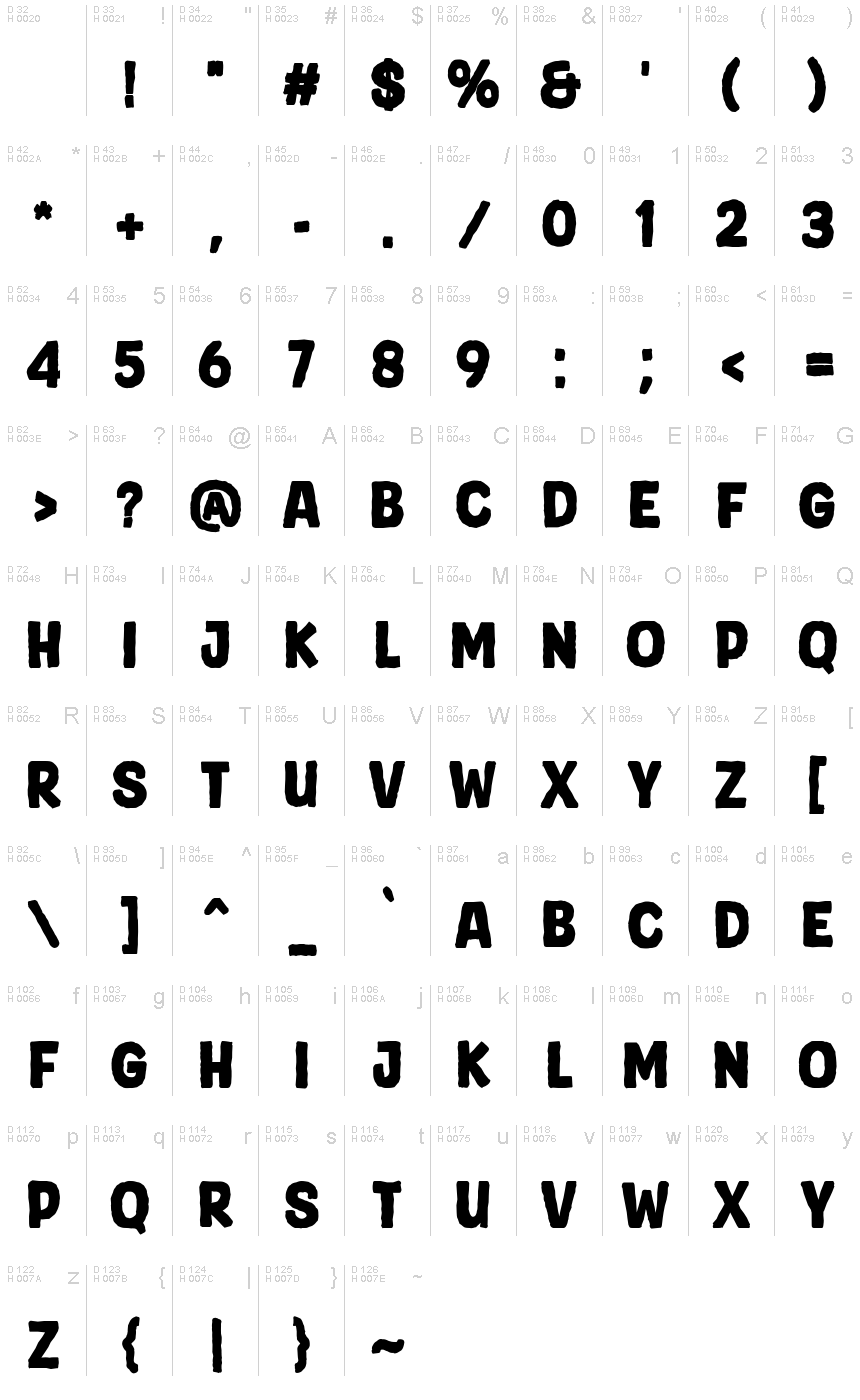
Super Normal
Super Normal by fsuarez913 is a captivating display font that exudes a rugged and eroded charm. Its bold weight ensures it stands out prominently, making it perfect for attention-grabbing headlines and impactful presentations. The unique eroded style gives it a distressed, weathered look, adding character and depth to any design.
Ideal for posters, logos, album covers, or any project requiring a bold statement, Super Normal's distinctive appearance brings an edgy yet approachable vibe. This versatile font seamlessly merges the raw appeal of its eroded aesthetic with the solid presence of its bold form, making it an excellent choice for creative projects that aim to leave a lasting impression.